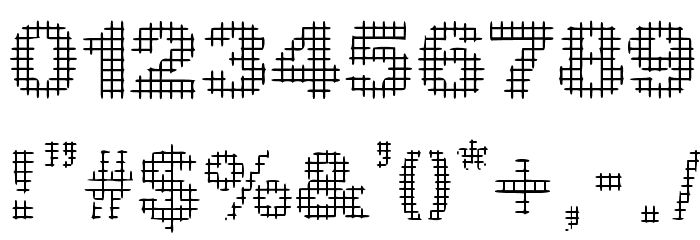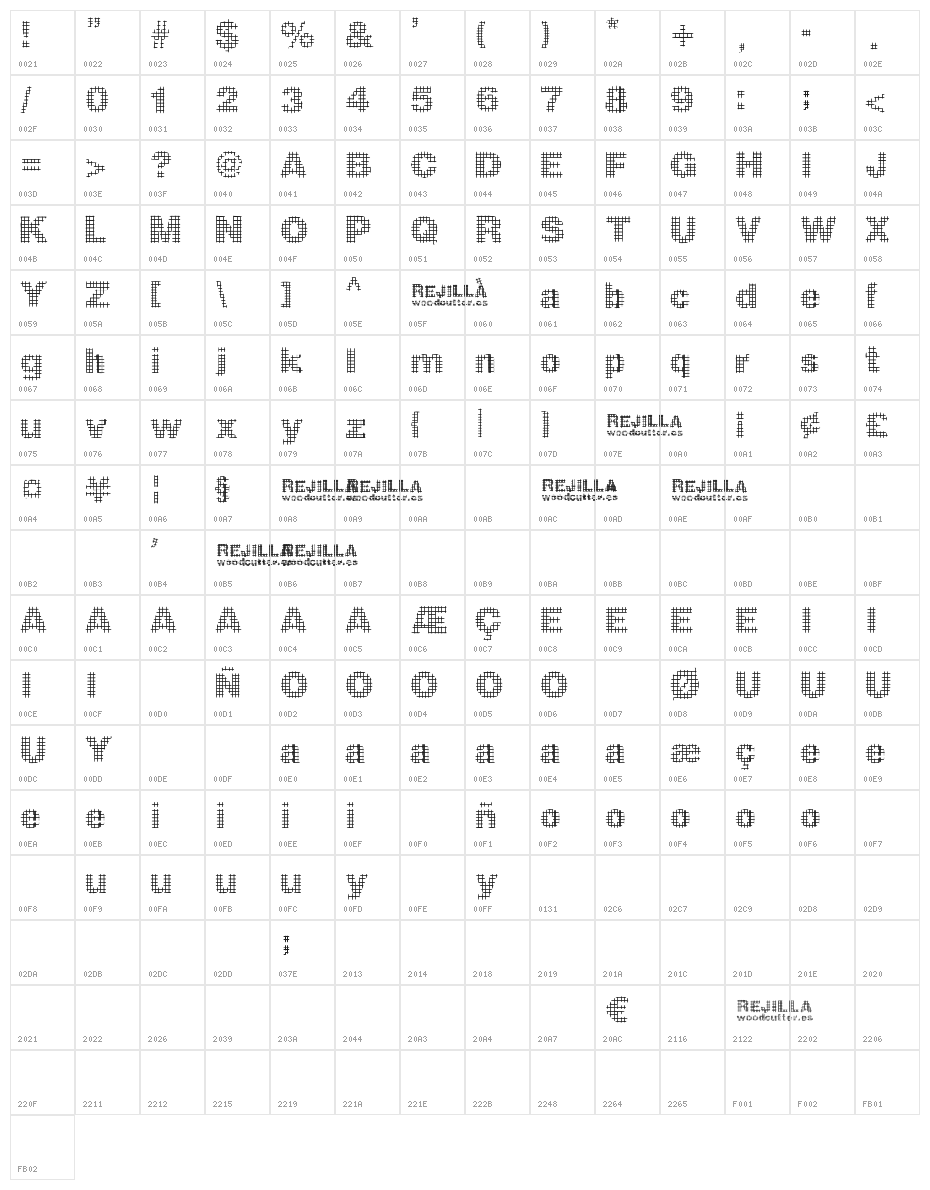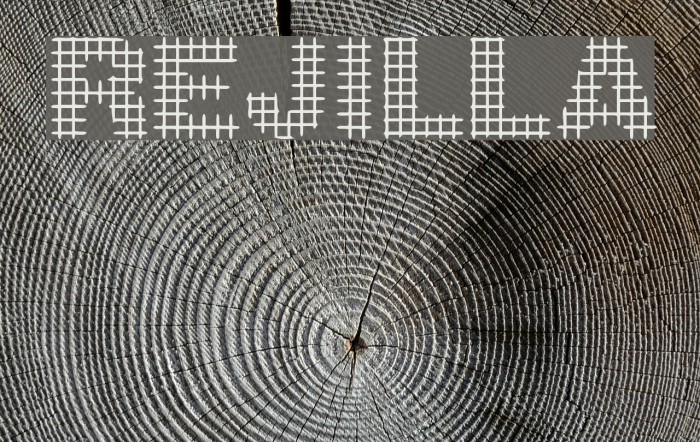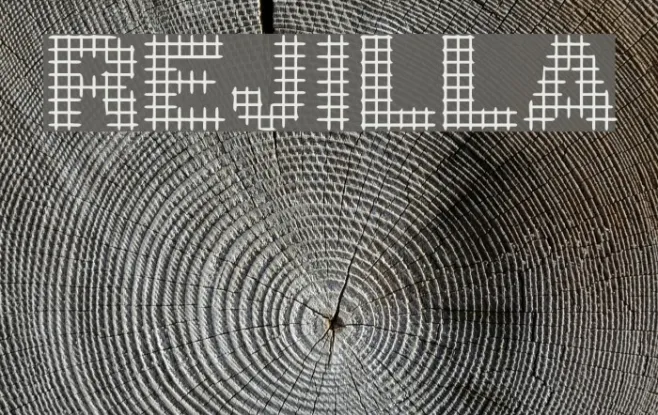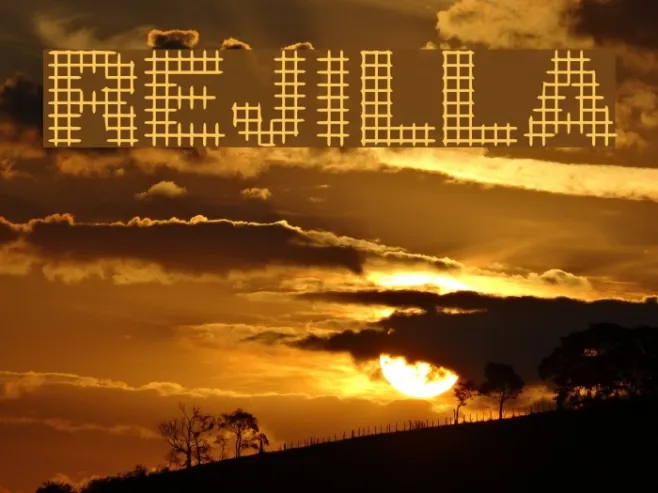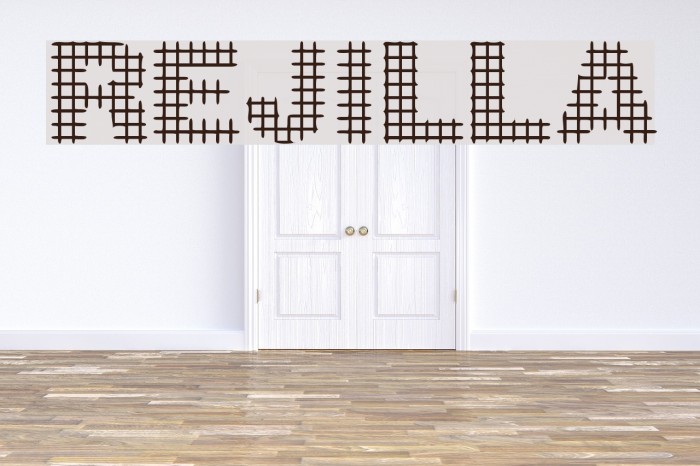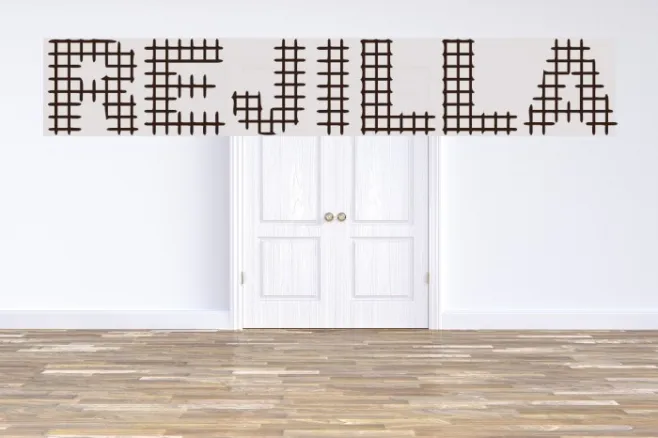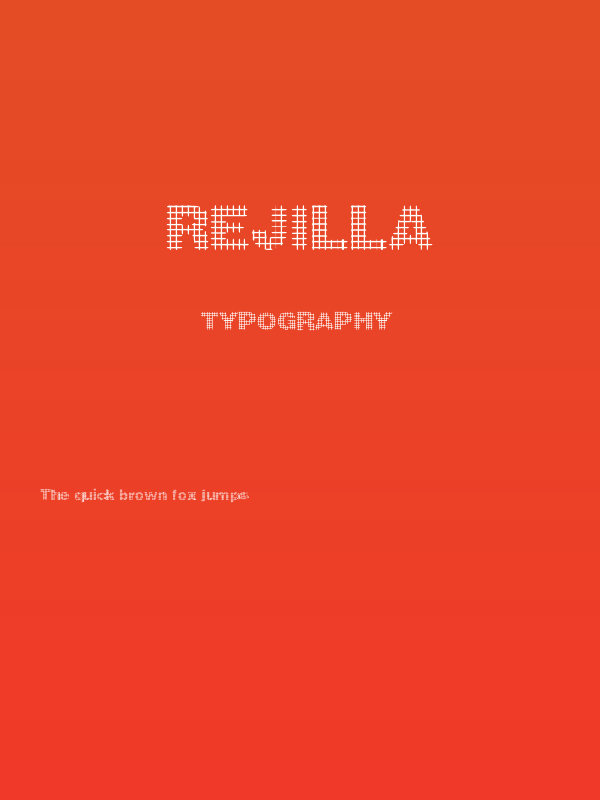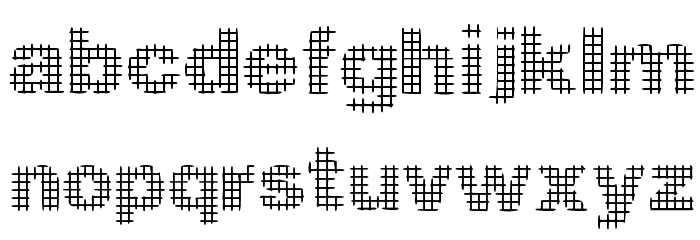
REJILLA Font
REJILLA Description
This font features a unique grid-like pattern that creates a textured, woven appearance. Each character is constructed with a series of intersecting lines, giving it a distinct, industrial feel. The uppercase and lowercase letters maintain a consistent structure, while the numerals and special characters follow the same design principle. The font's geometric nature makes it stand out, offering a bold and eye-catching aesthetic. Its intricate design suggests a sense of complexity and modernity, making it suitable for projects that require a strong visual impact.
| Proposed Projects | Ideal for branding, posters, and digital artwork that require a modern, industrial aesthetic. |